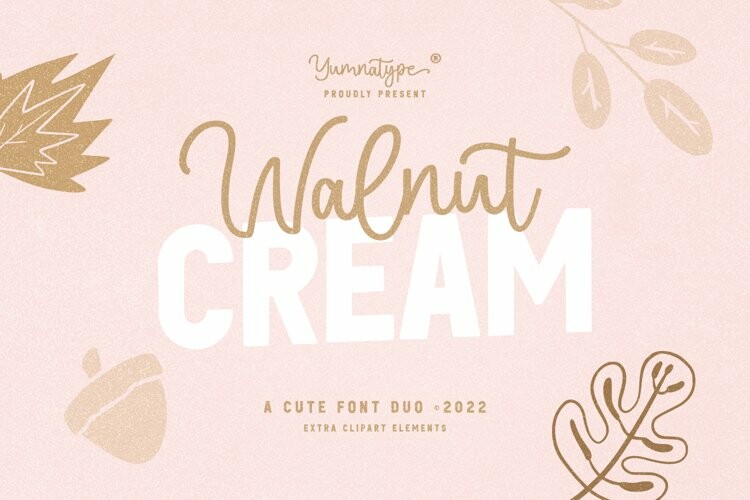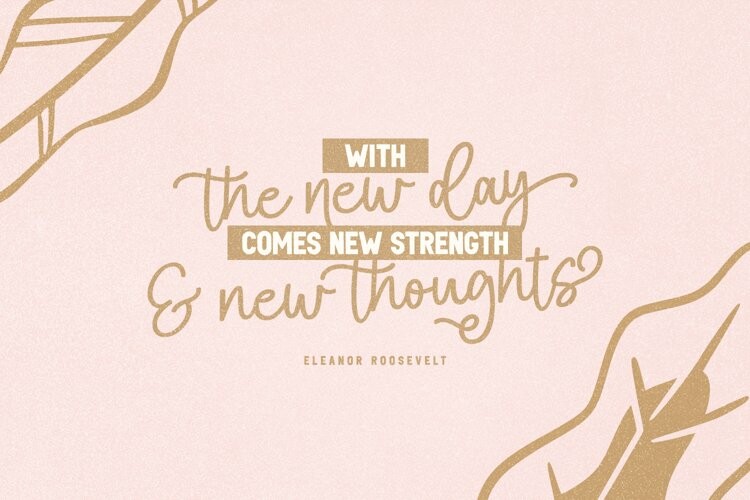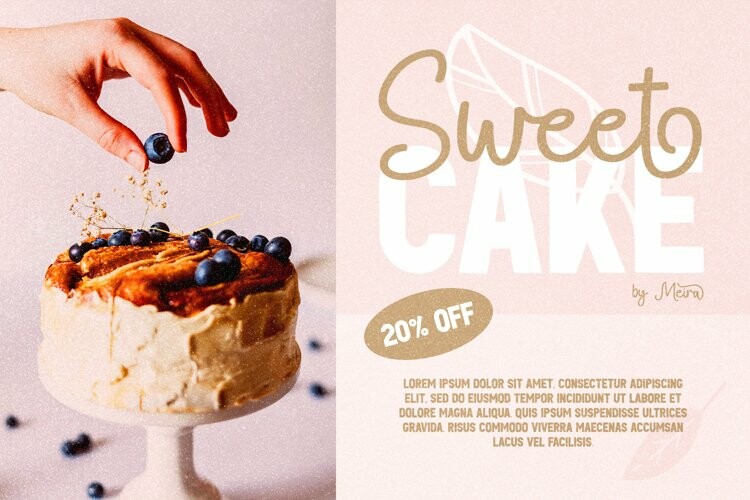
Walnut Cream Font
Walnut Cream FontThe cute elegant Walnut Cream is a great combination of the handcrafted script font and the uppercase display font to beautify your designs. The script style brings your design to delve deep into the world of elegance, while the display font generates modern look. As a result when you use it together, it would be magnificent set. Furthermore, this font duo also offers a special extras i.e. 15 illustrations in total.